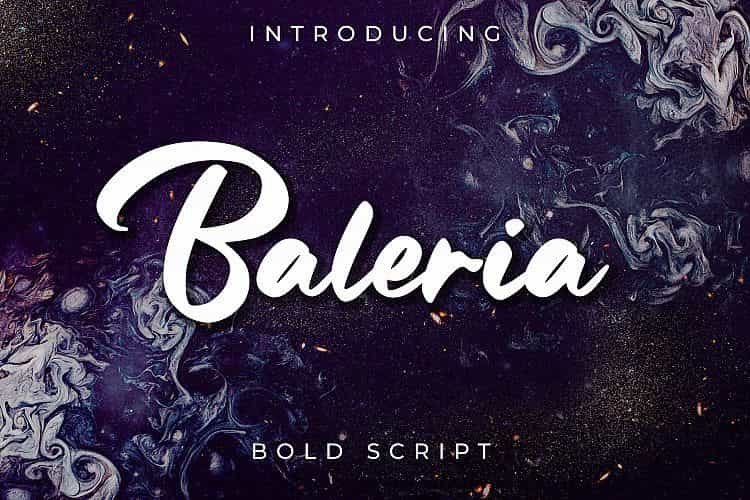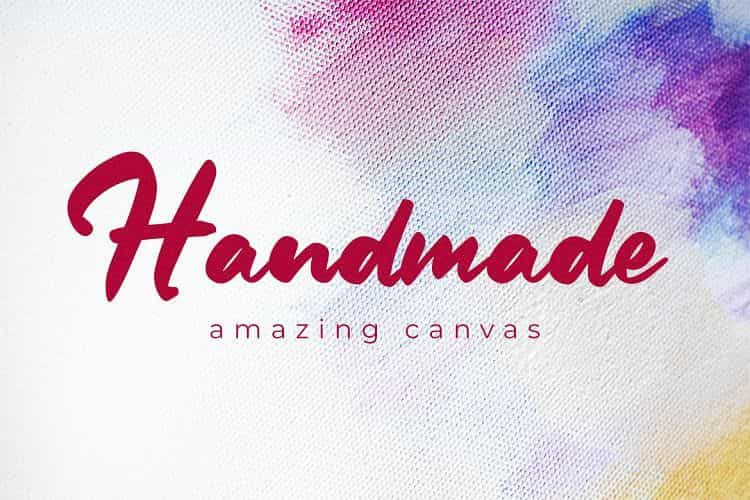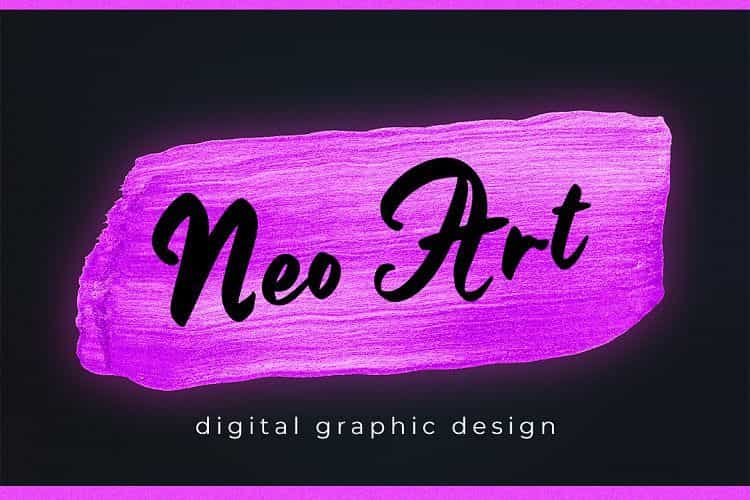
Discover Baleria Script Font, part of the Brush collection—a versatile and unique font perfect for adding a personal touch to your projects. Download it for free and enjoy crafting designs with style, from invitations to social media posts. This font is available exclusively for personal use, giving you the freedom to create without limits. Unlock your creativity with Baleria Script Font today!
Baleria Script is a modern bold script fresh from the box with a hand-painted calligraphy flair, ornamental images, and a dancing underlayer! Greeting cards, branding, business cards, quotes, graphics, and many more. So lovely on invitations!